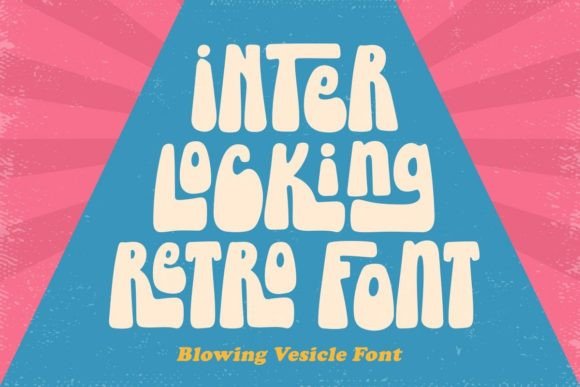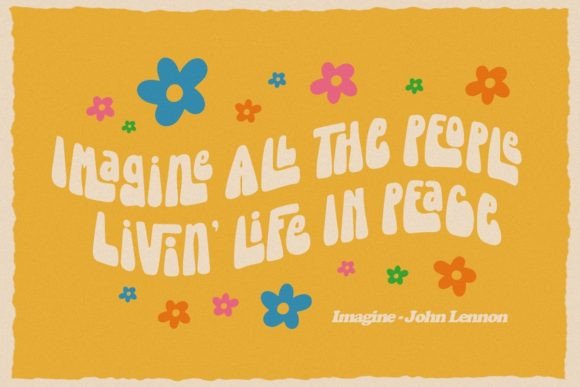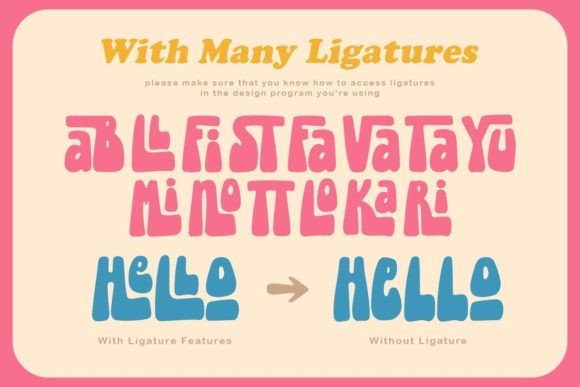
Blowing Vesicle Font
Blowing Vesicle is a retro bold font that will bring you back to the 60s. Its funky and groovy style makes it perfect for all your hippie projects and will instantly add a retro touch to your designs.This font is PUA encoded which means you can access all of the amazing glyphs and ligatures with ease!